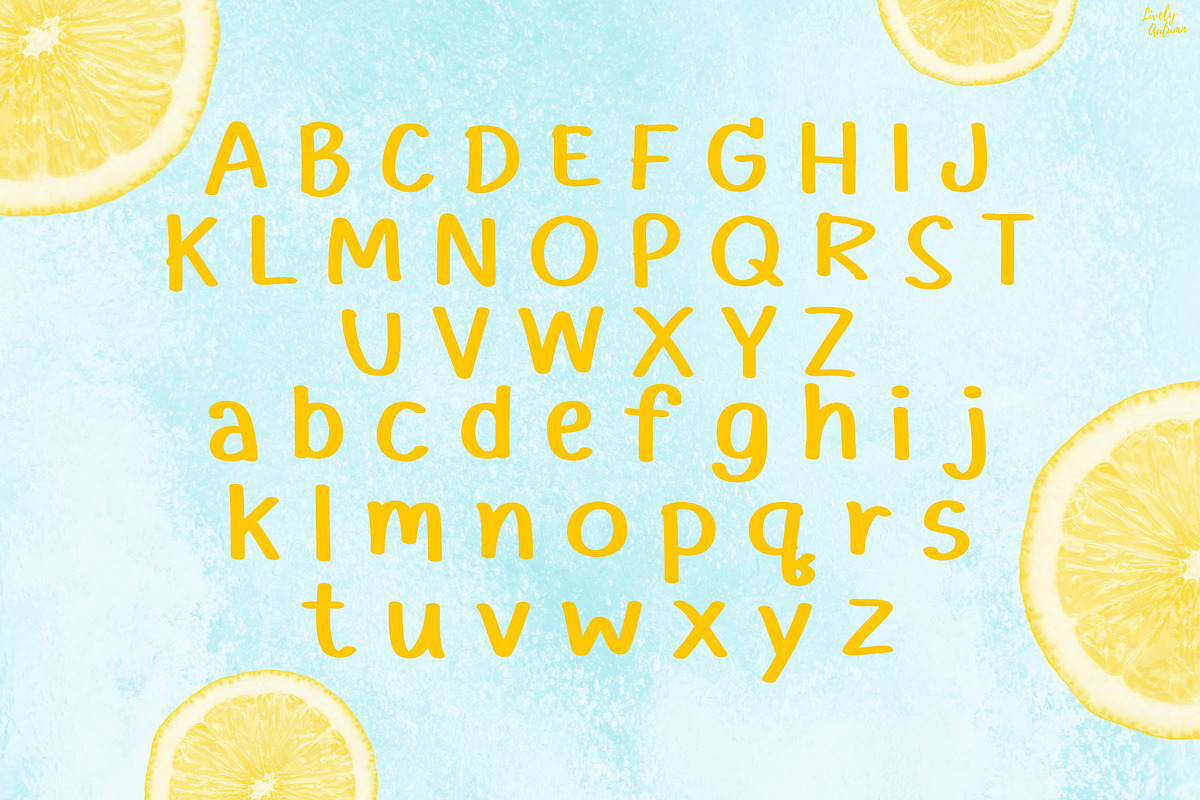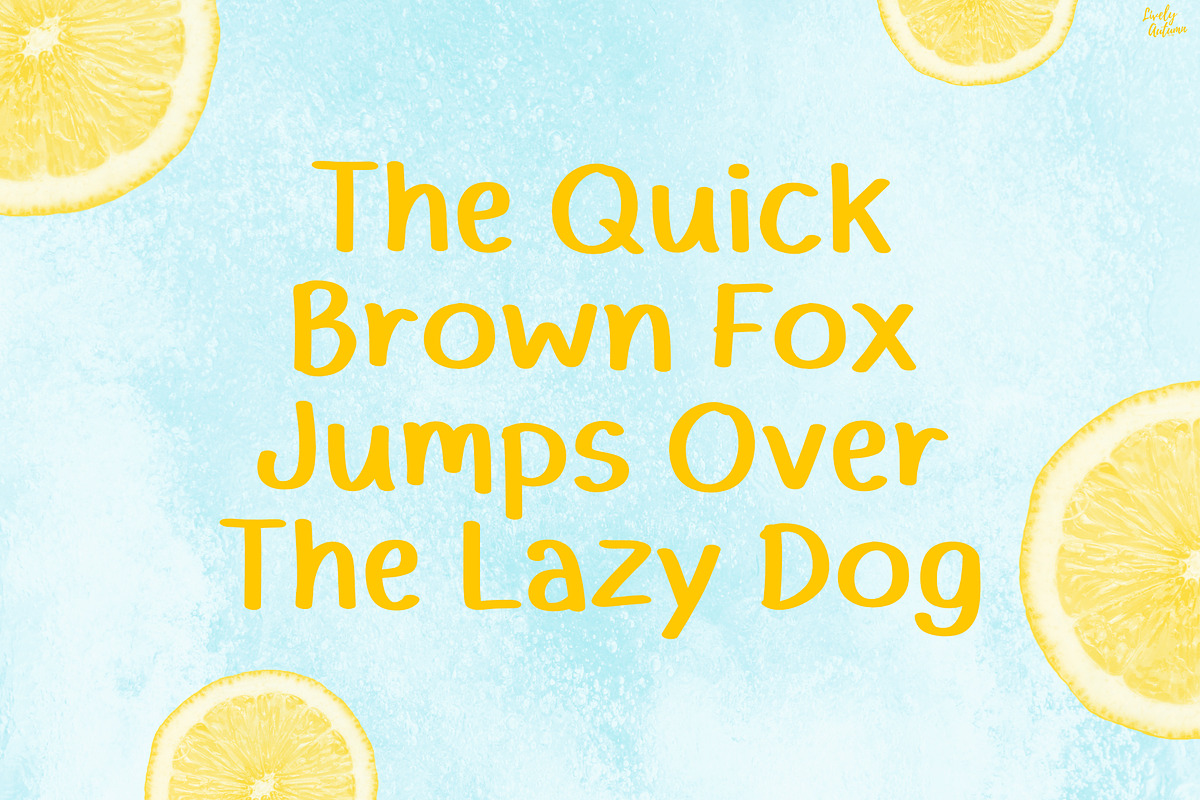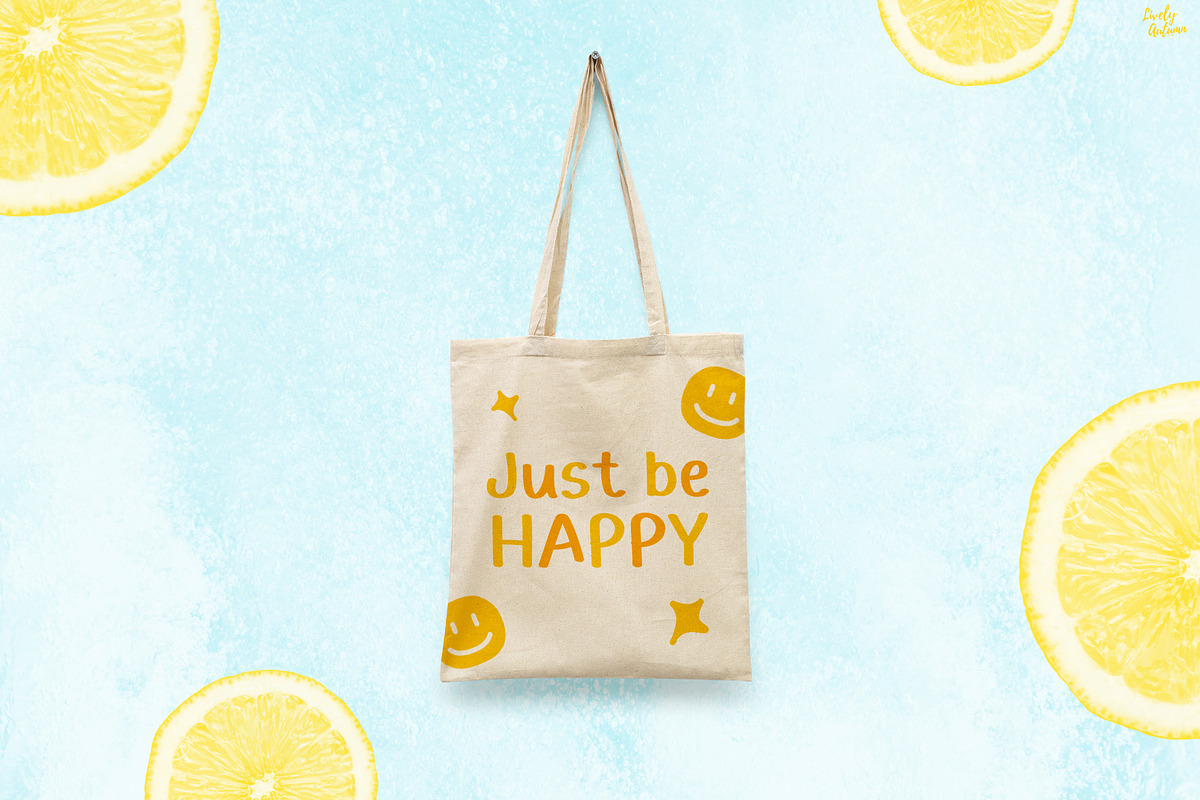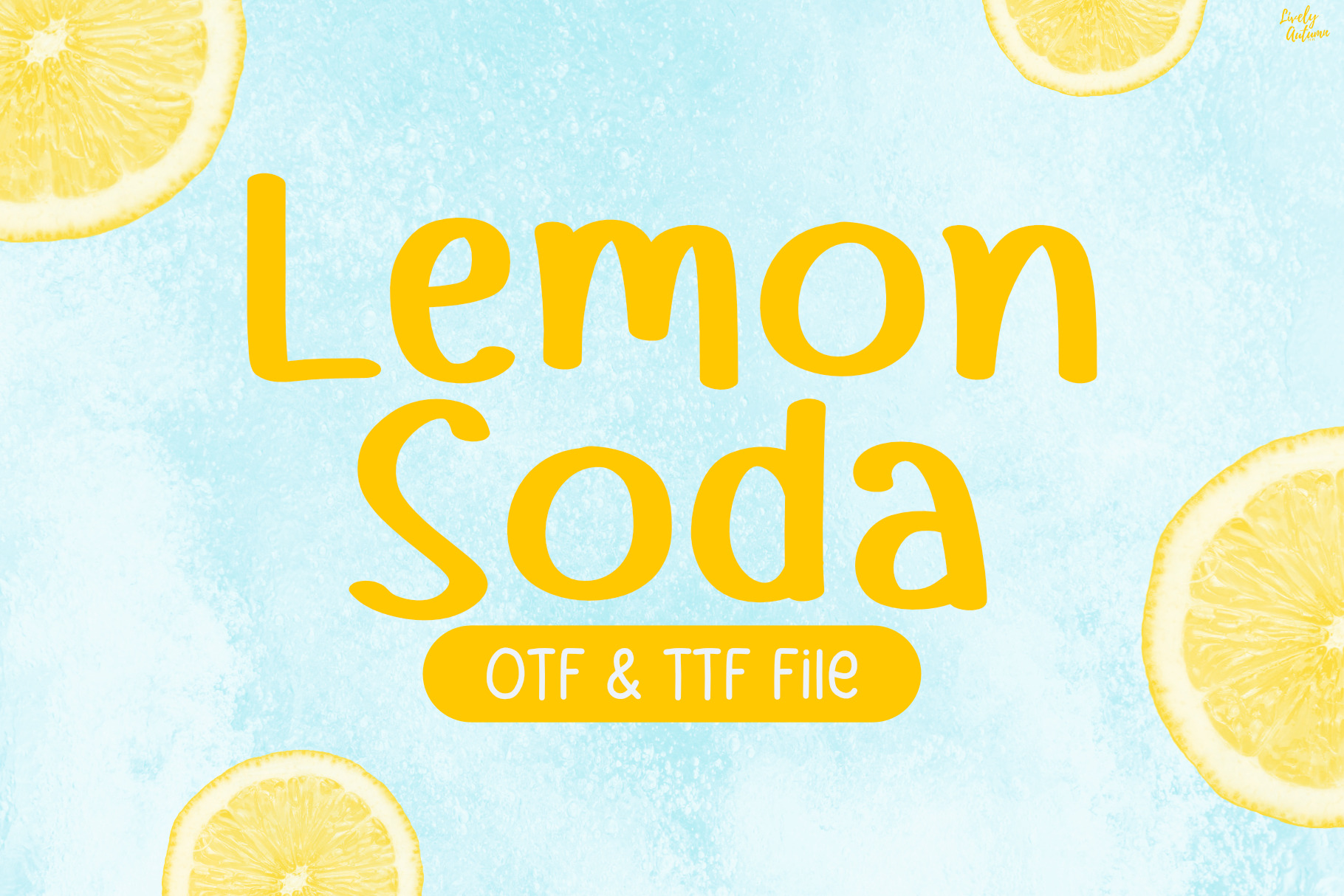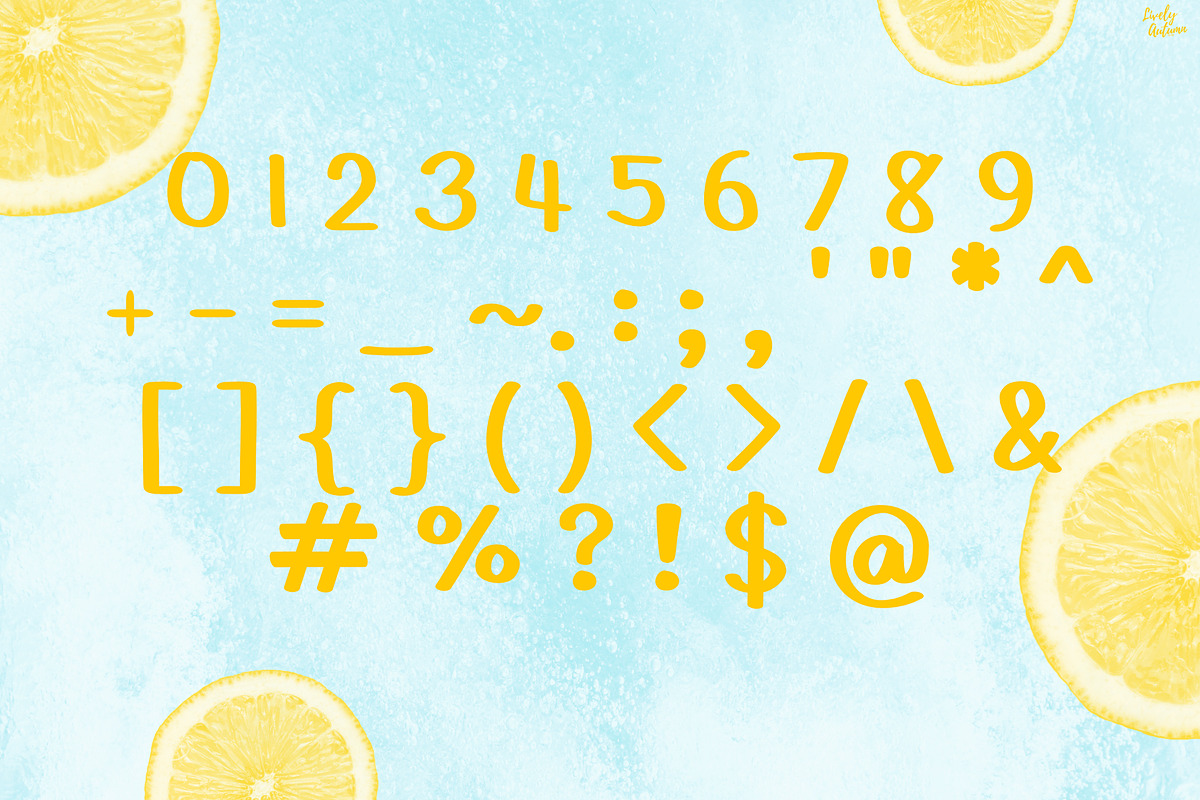
Lemon Soda | Fun Handwriting Font
Lemon Soda is a bold handwritten sans serif font with a bright summer vibe. Fun, lively and easy to read. Perfect for your personal projects and various projects. From invitations to posters, social media graphics, journals, stickers and much more.
Font includes: uppercase, lowercase, numbers, and punctuation.